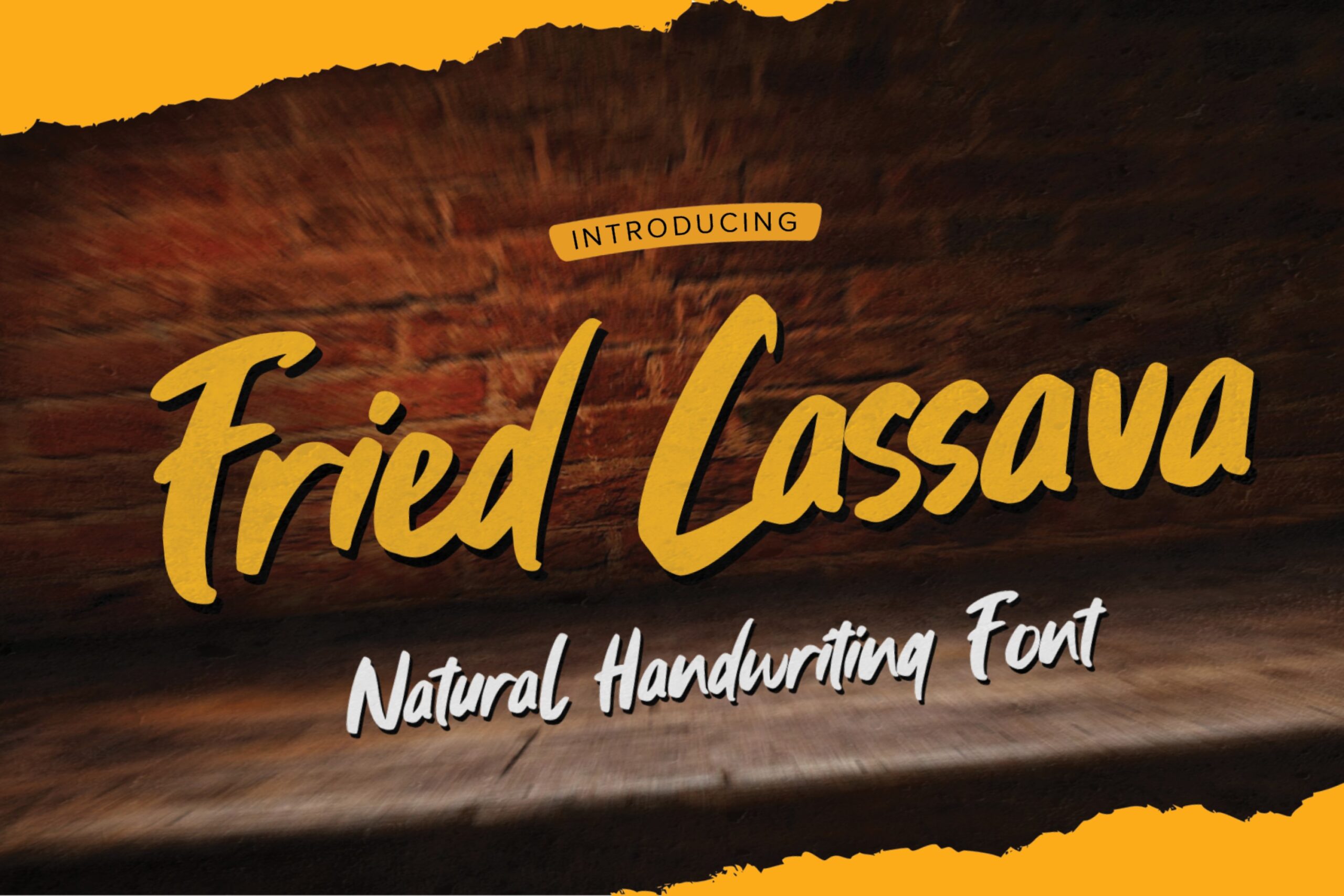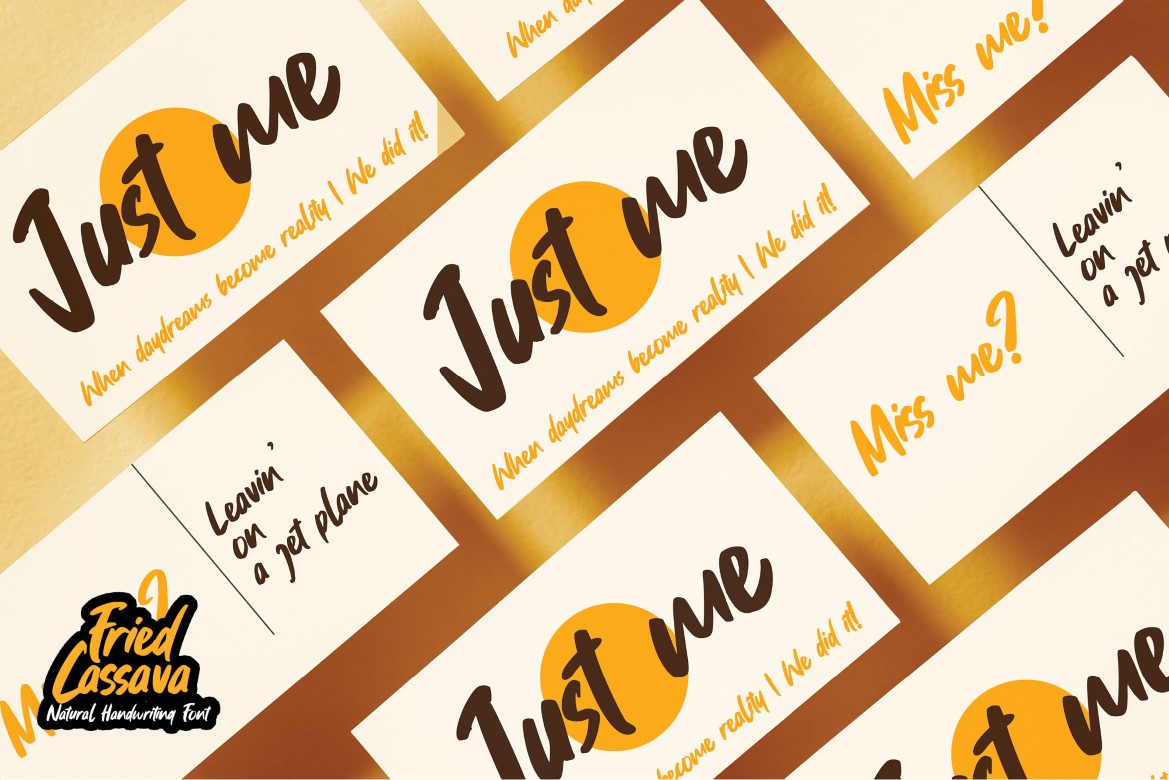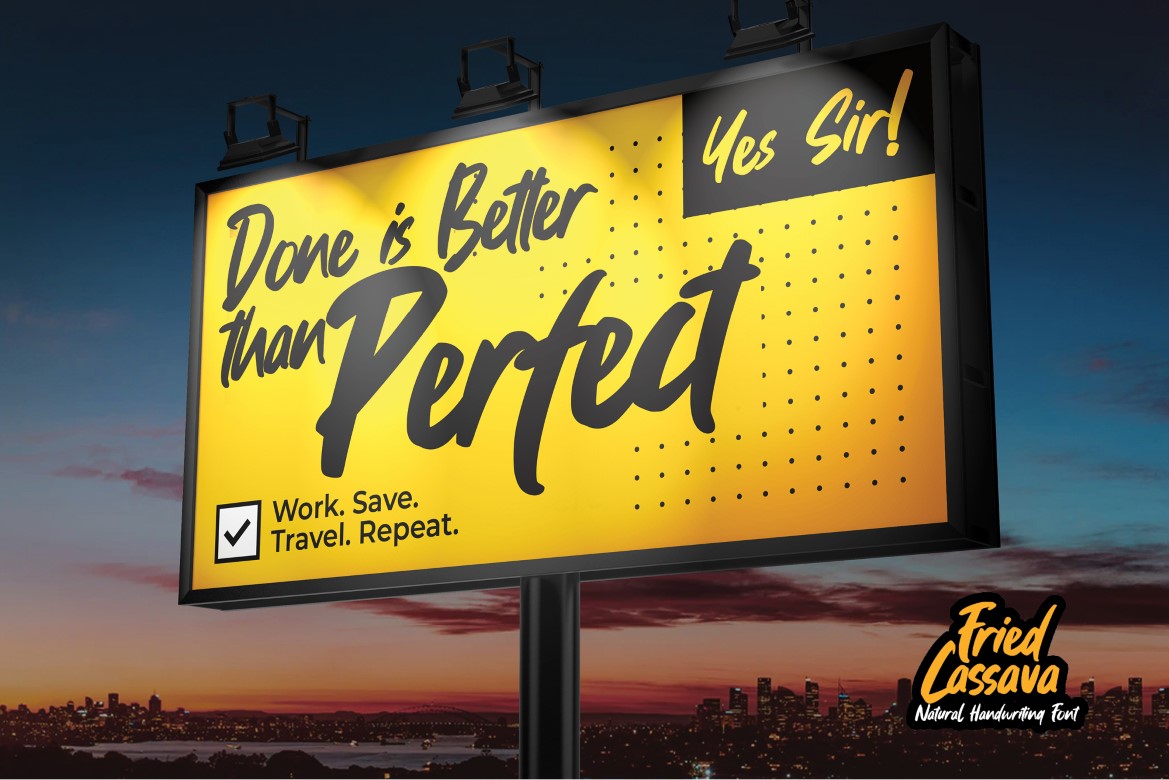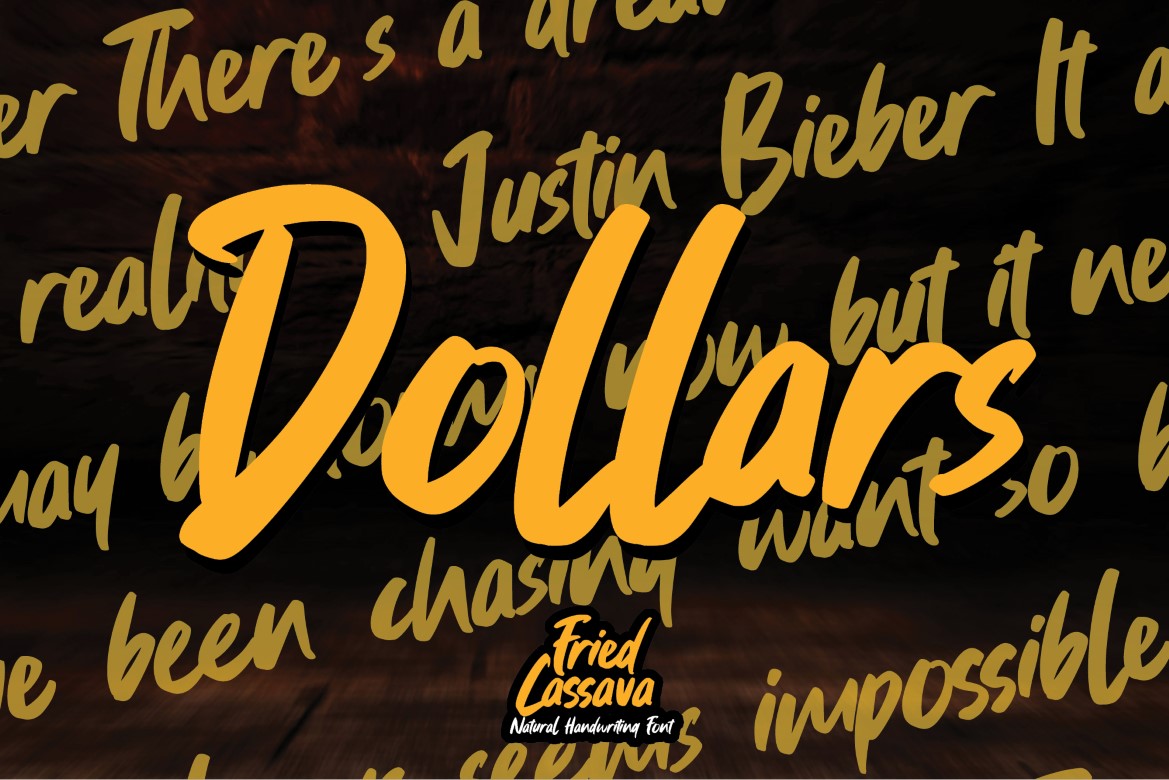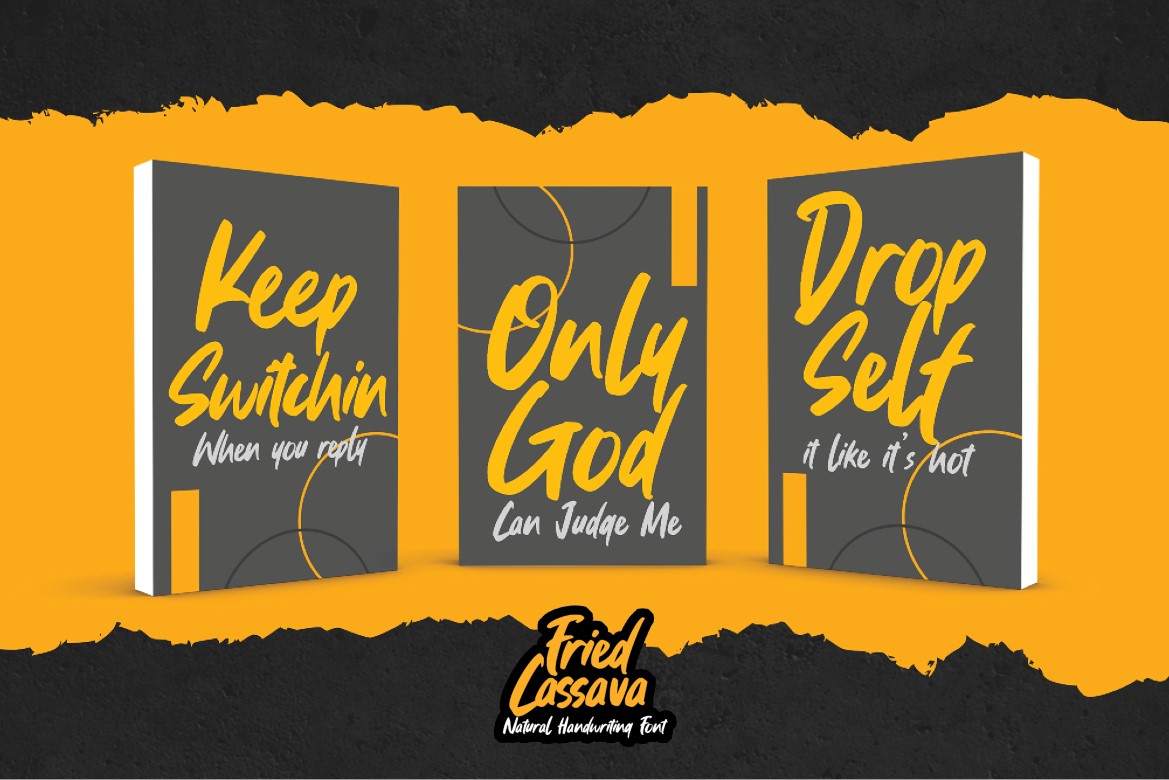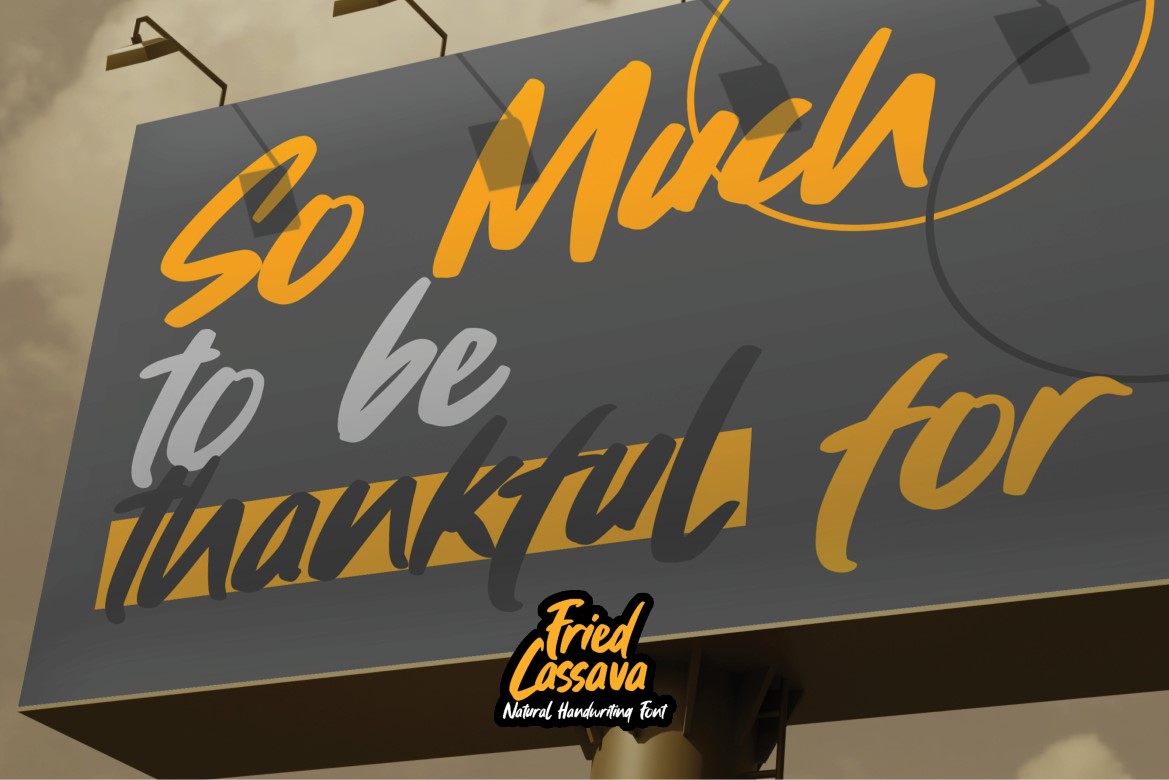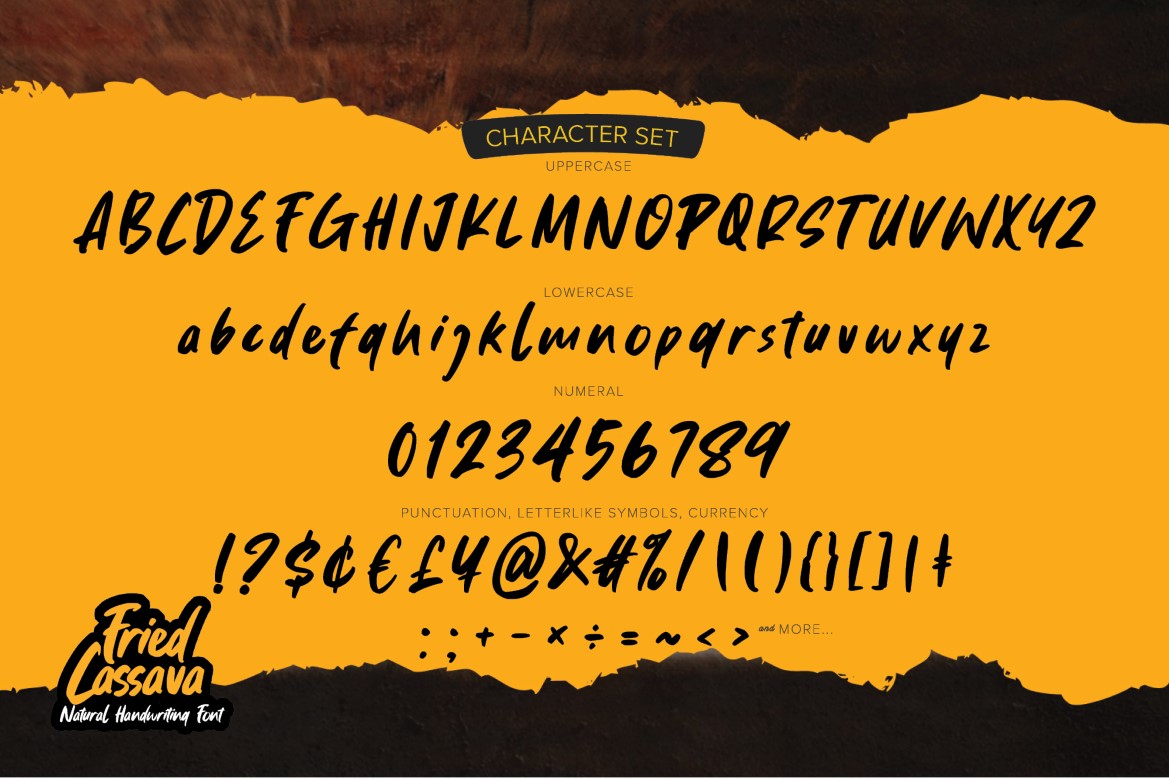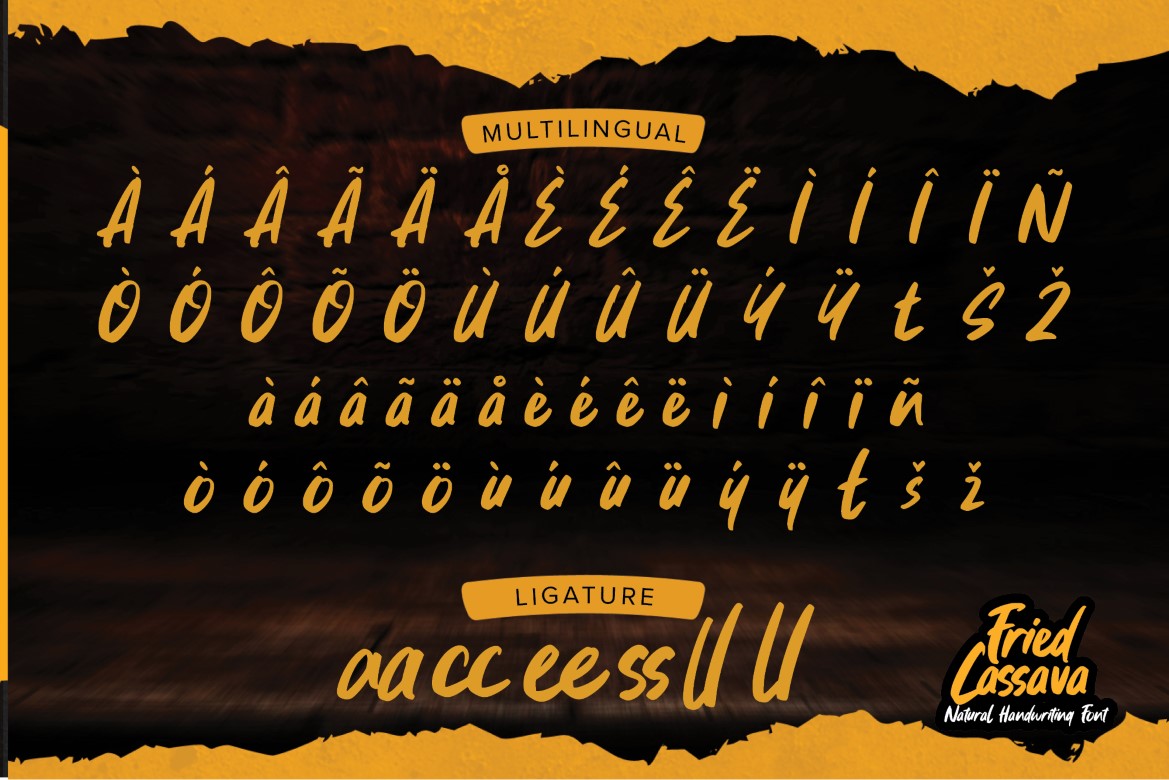
Fried Cassava – Natural Handwritten Font ,Playful Craft Font Display Font is an Grungy cartoon font brush that is written casually and quickly.
That is why Fried Cassava has a authentic, and strong characteristic more natural look.
Fried Cassava Perfect for designs, branding projects, Logo design,Quotes product packaging and another Project that require cool strong display font.